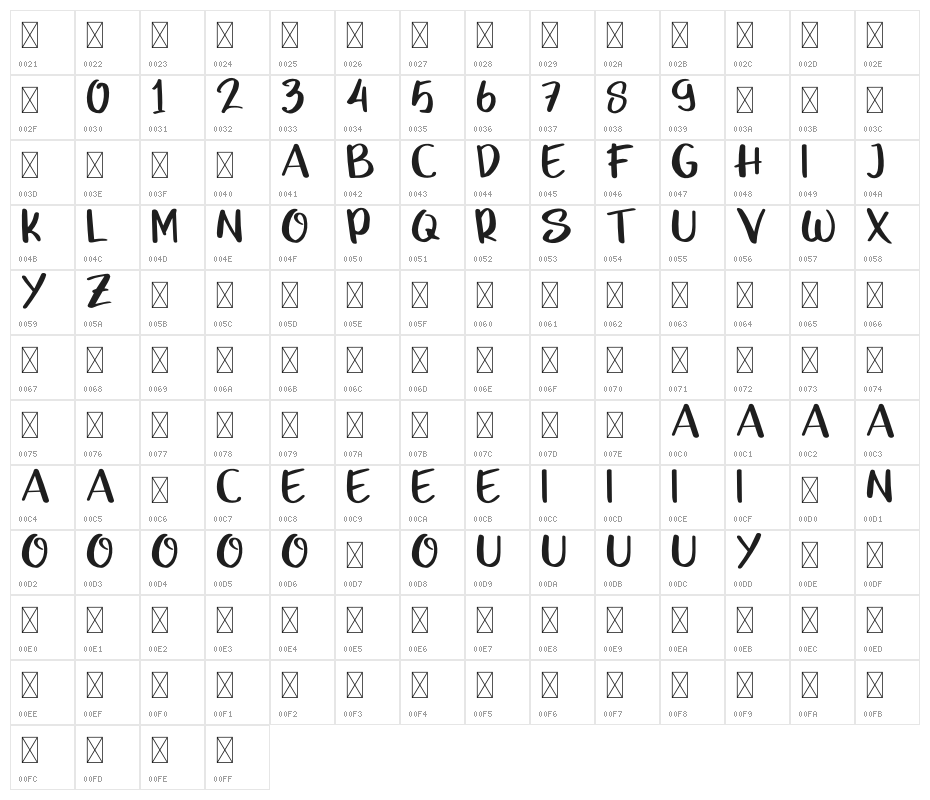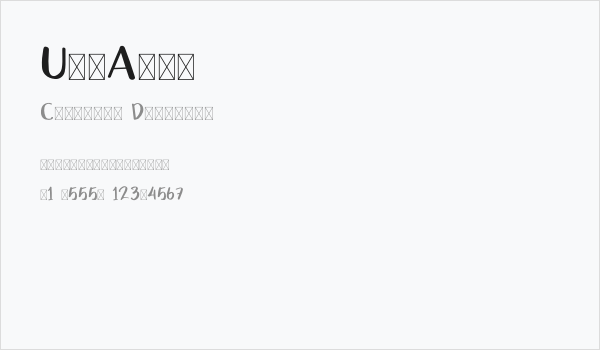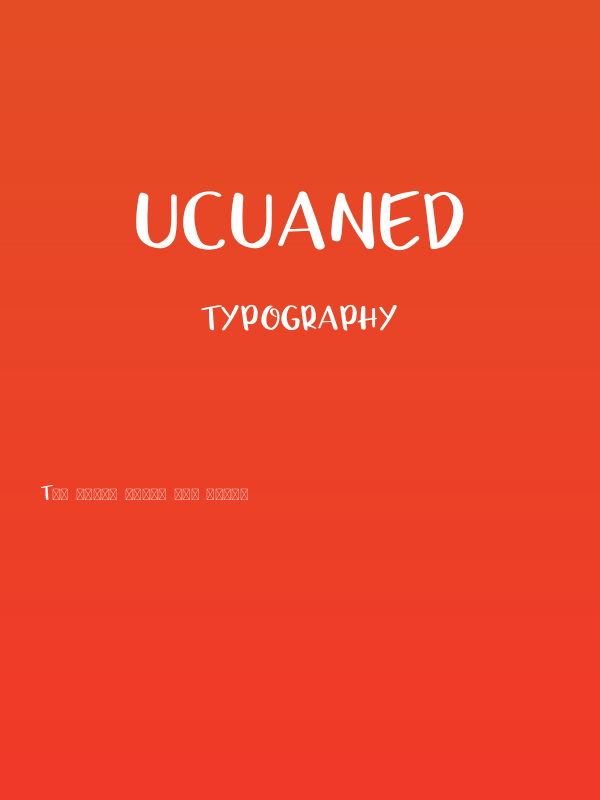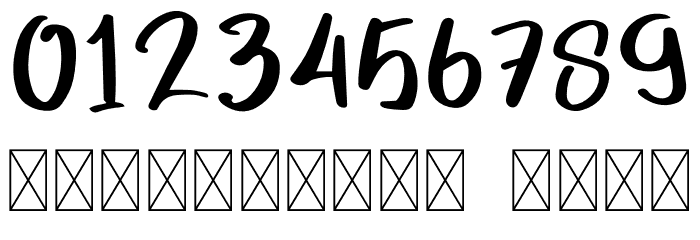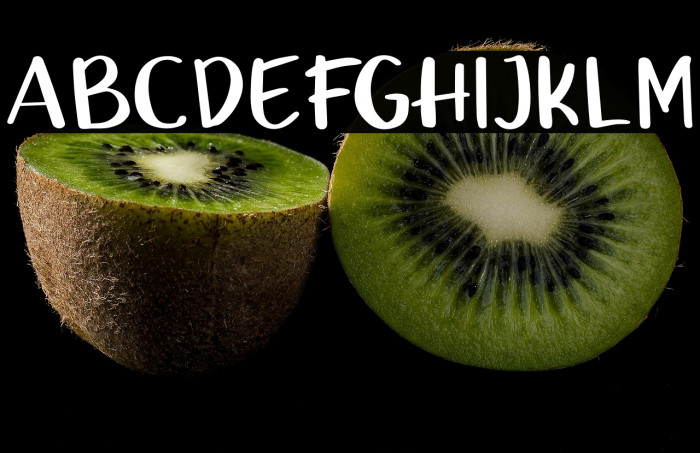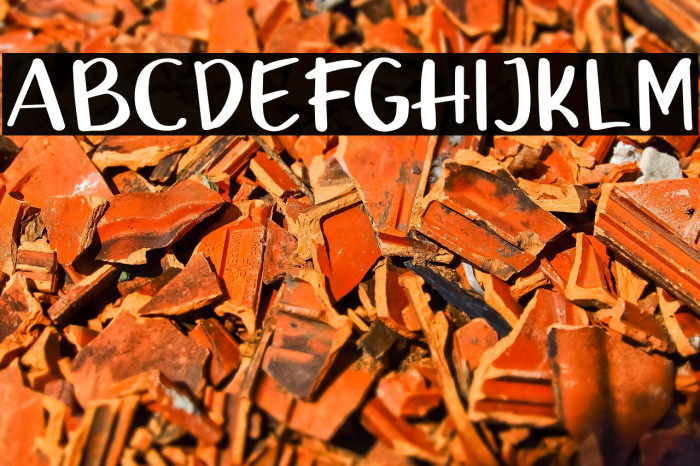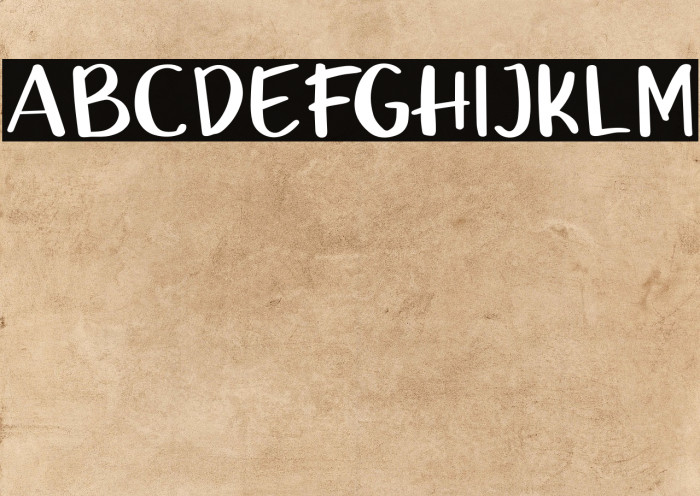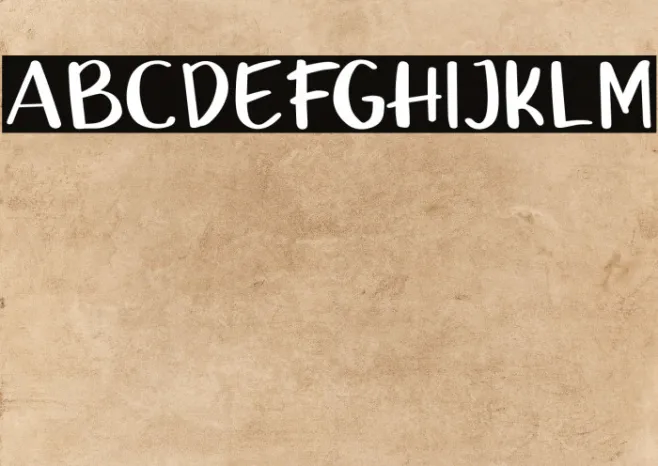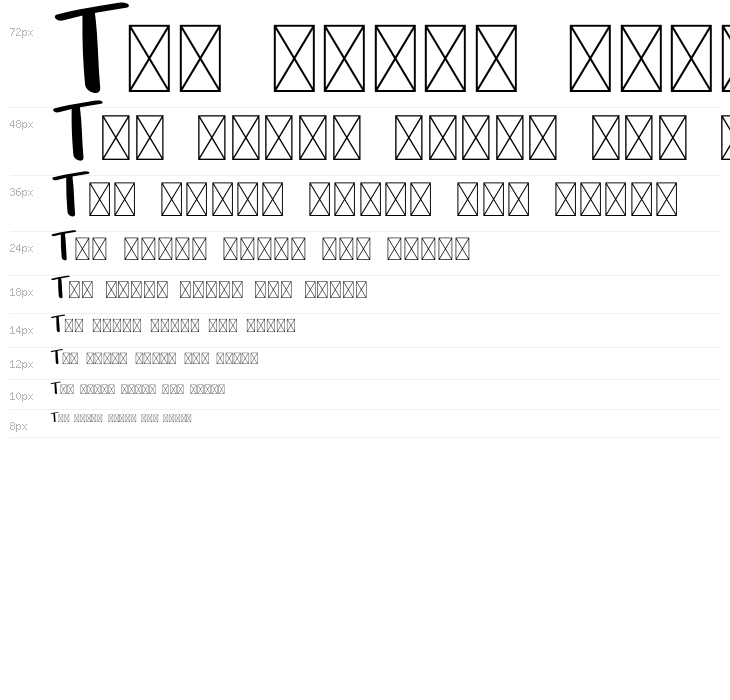
UcuAned Font
UcuAned Description
This font features a playful and dynamic style with a handwritten appearance. The uppercase letters are bold and slightly slanted, giving them a sense of movement and energy. The numbers follow a similar style, maintaining the playful and informal vibe. The strokes are consistent in thickness, providing a balanced look. The overall design is casual and approachable, making it suitable for creative and informal projects.
| Proposed Projects | Ideal for greeting cards, children's books, playful branding, and casual invitations. |